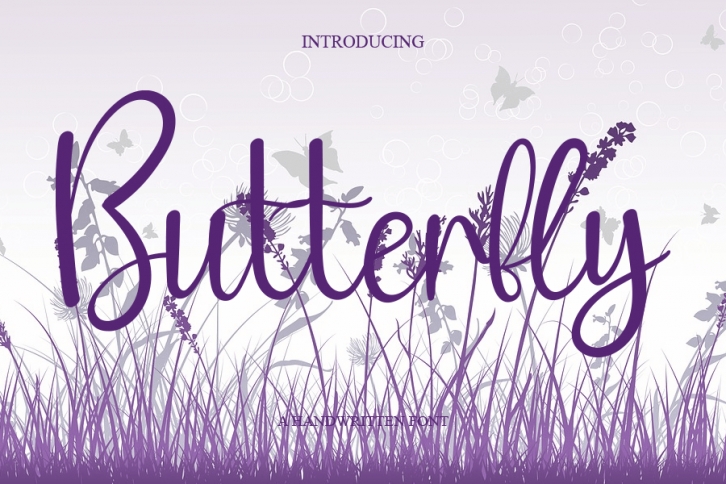
This is a fun and friendly handwritten font. Whether you’re using it for crafts, digital design, presentations, or creating greeting cards, this font has the potential to become your favorite font, whatever the occasion!